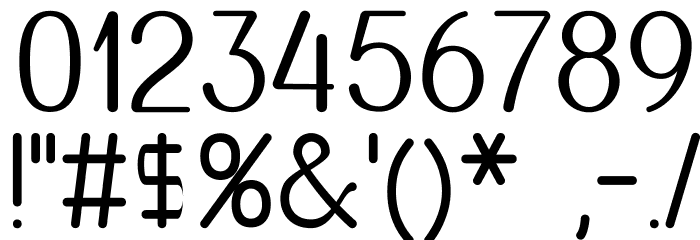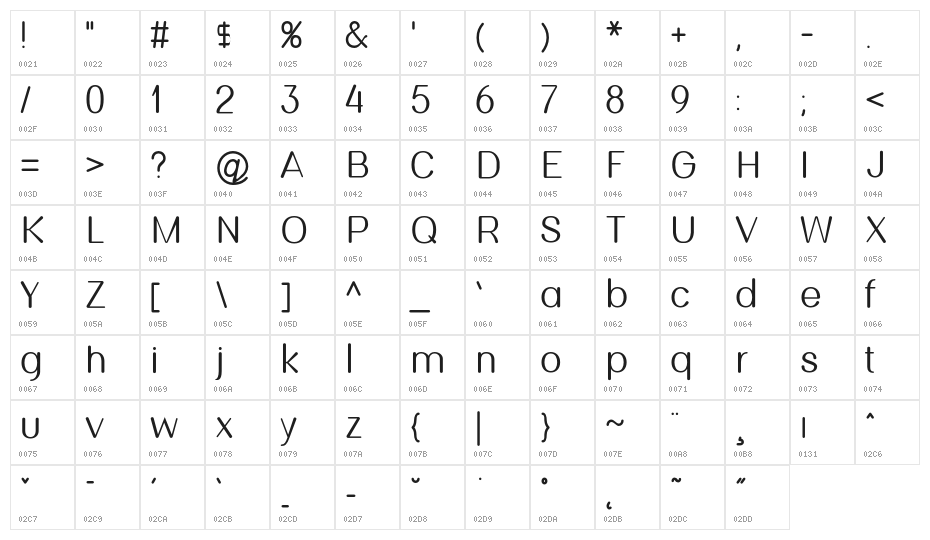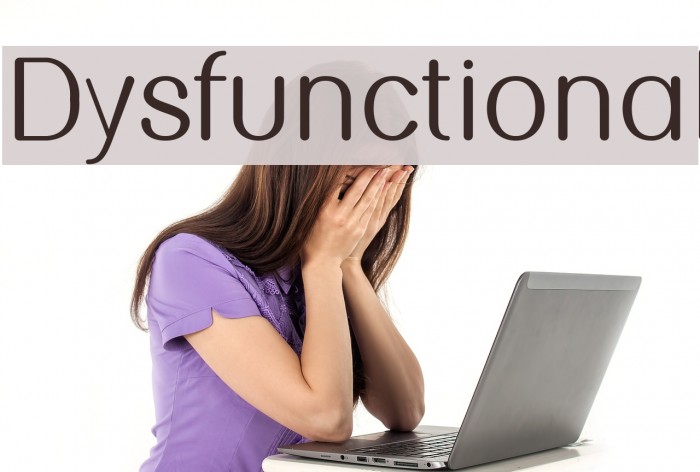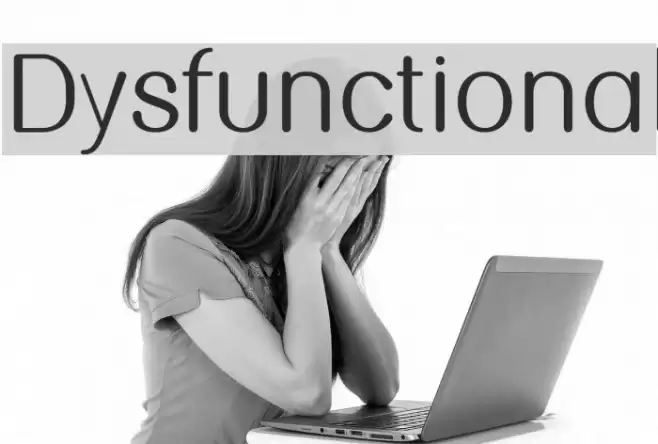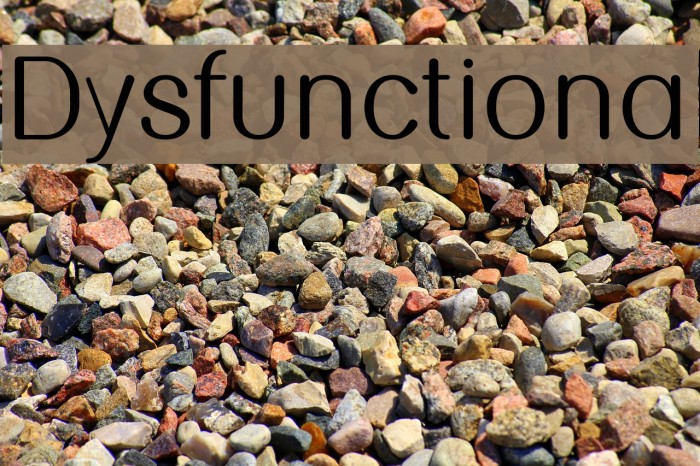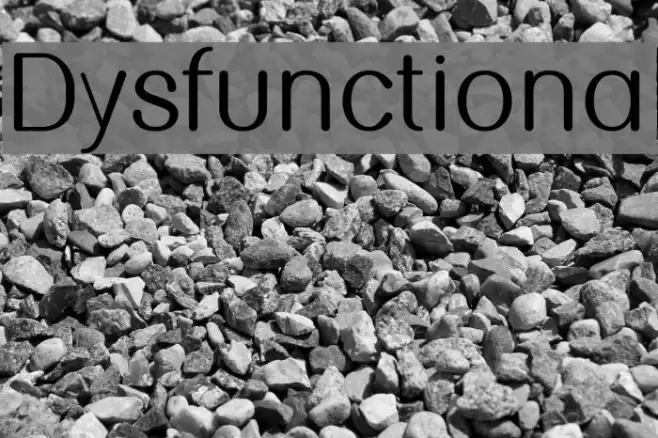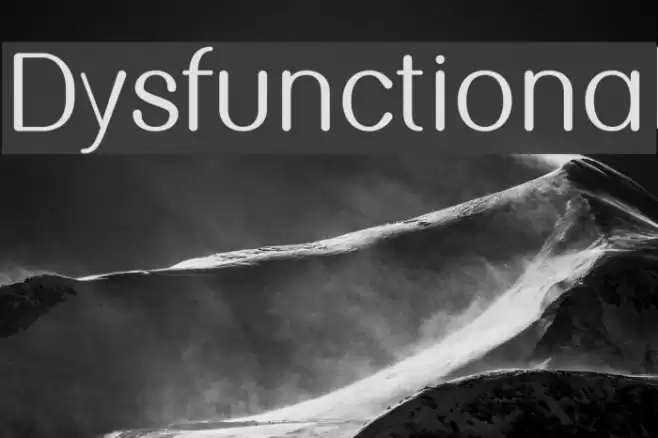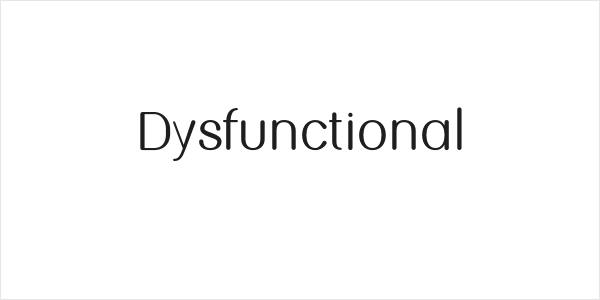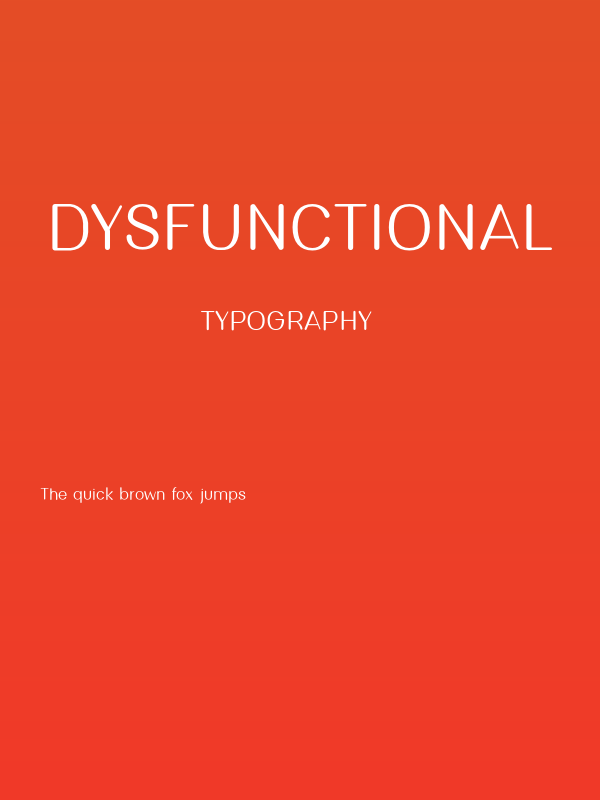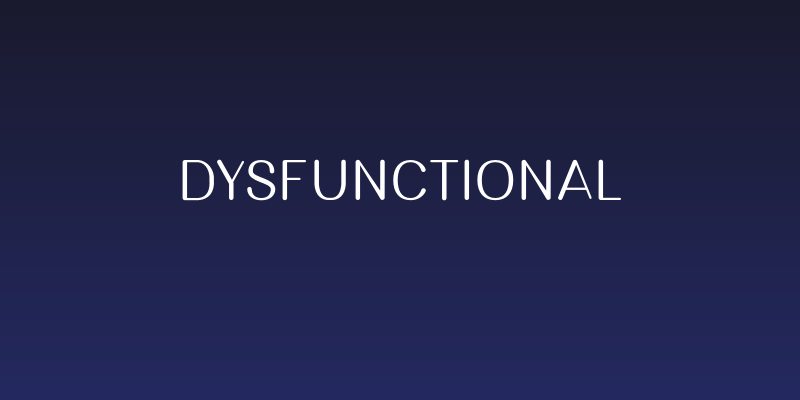
Dysfunctional Font
Dysfunctional Description
This font features a clean and modern sans-serif design with smooth curves and a uniform stroke width. The uppercase and lowercase letters are well-proportioned, offering a harmonious appearance. The numerals are clear and easily distinguishable, making them suitable for various applications. Special characters are included, maintaining the font's consistent style. The overall look is sleek and professional, ideal for contemporary design projects.
| Proposed Projects | Ideal for branding, web design, advertising, and editorial projects where a modern and clean aesthetic is desired. |